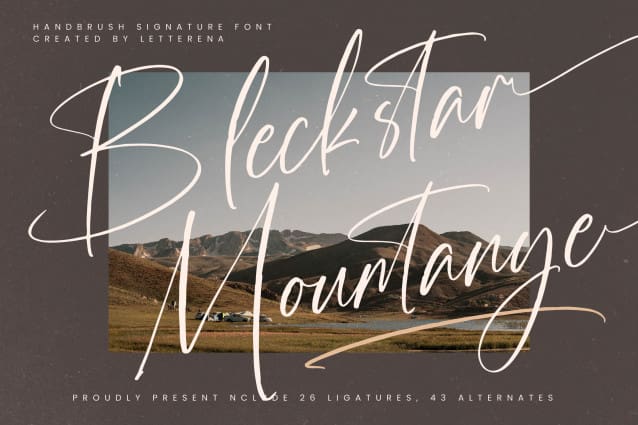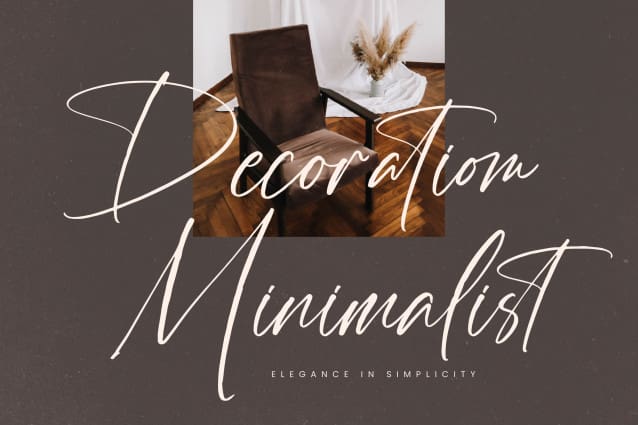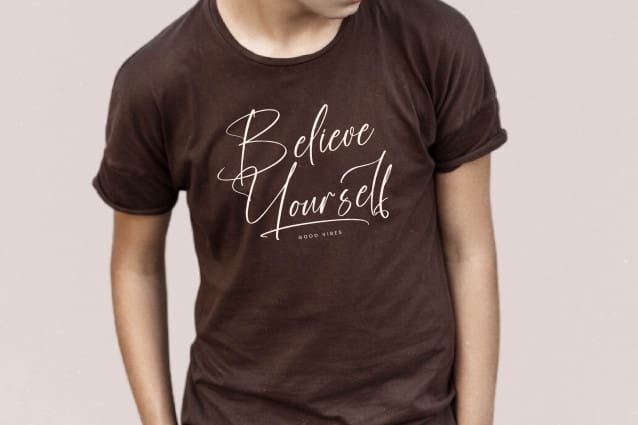
Bleckstar Mountanye Font
Bleckstar Mountanye Font – Handbrush Signature Font , from Letterena, is a Luxury Script font, suitable for any projects such as: logos, branding projects, homeware designs, product packaging, mugs, quotes, posters, shopping bags, t-shirts, book covers, name card, invitation cards, greeting cards, label, photography, watermark, special events, and all your other luxury and beautiful projects that need a Luxury Script taste.